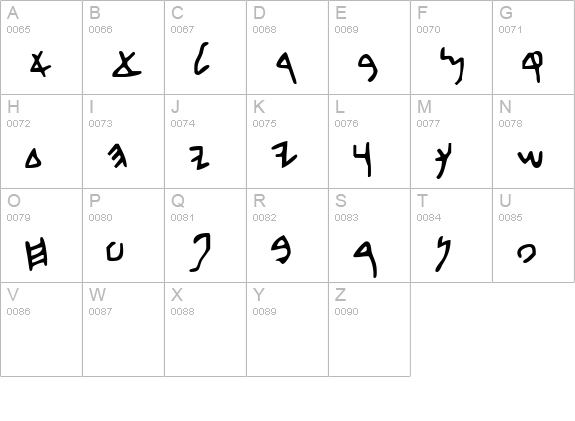
Beth David Font Details
Beth David font is a stunning typeface that exudes elegance and sophistication. With its sleek lines and classic appeal, this font is perfect for adding a touch of charm to any design project. Whether you are creating invitations, branding materials, or website content, Beth David font will elevate your work to the next level. What makes Beth David font even more amazing is that it is completely free to download. You can easily access this beautiful font at FontsMarket.com without any cost. Its generous availability allows designers and creatives to enjoy its beauty and versatility without any limitations. Embrace the timeless beauty of Beth David font in your creative projects and watch as it transforms your designs into works of art. Download this exquisite font for free today at FontsMarket.com and let your creativity shine!